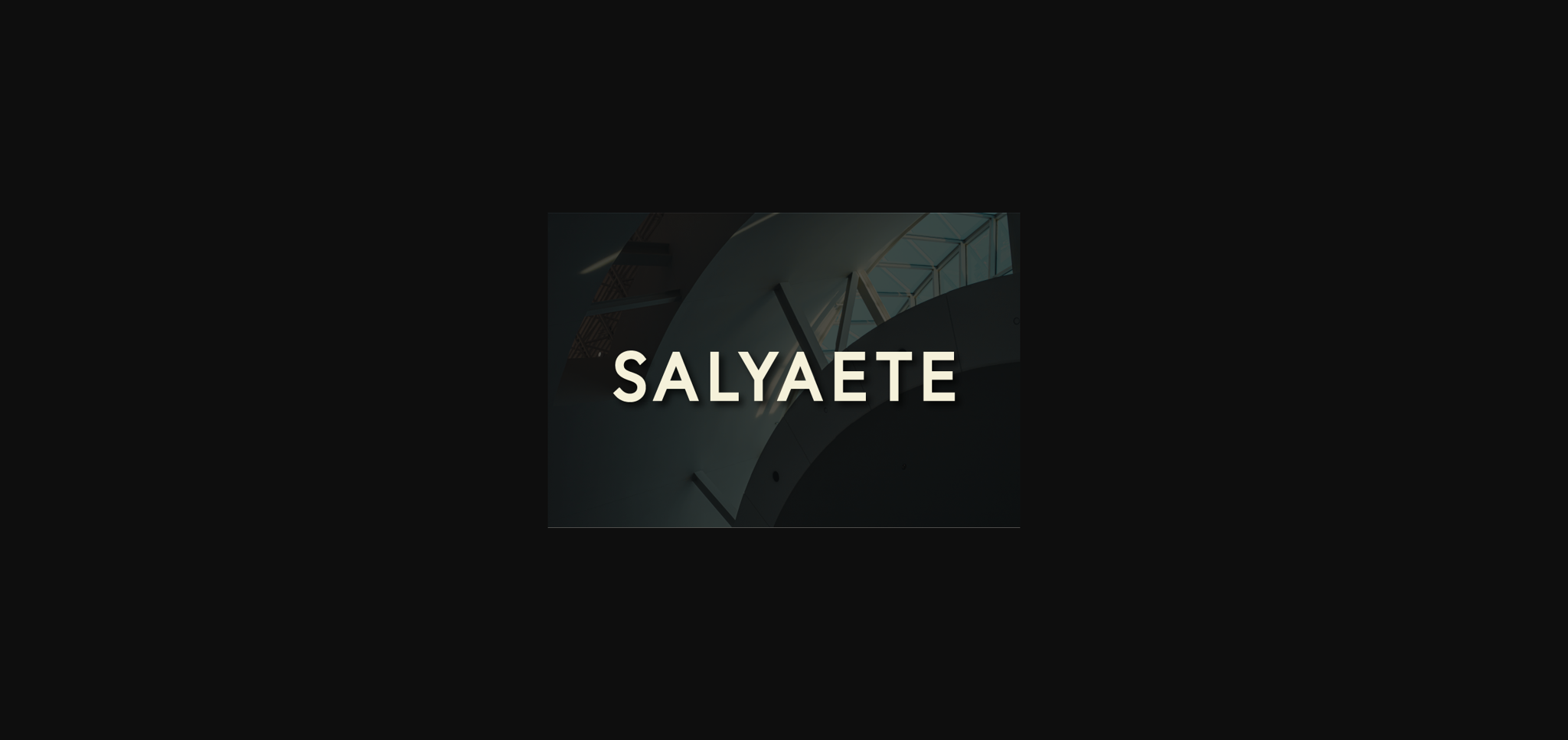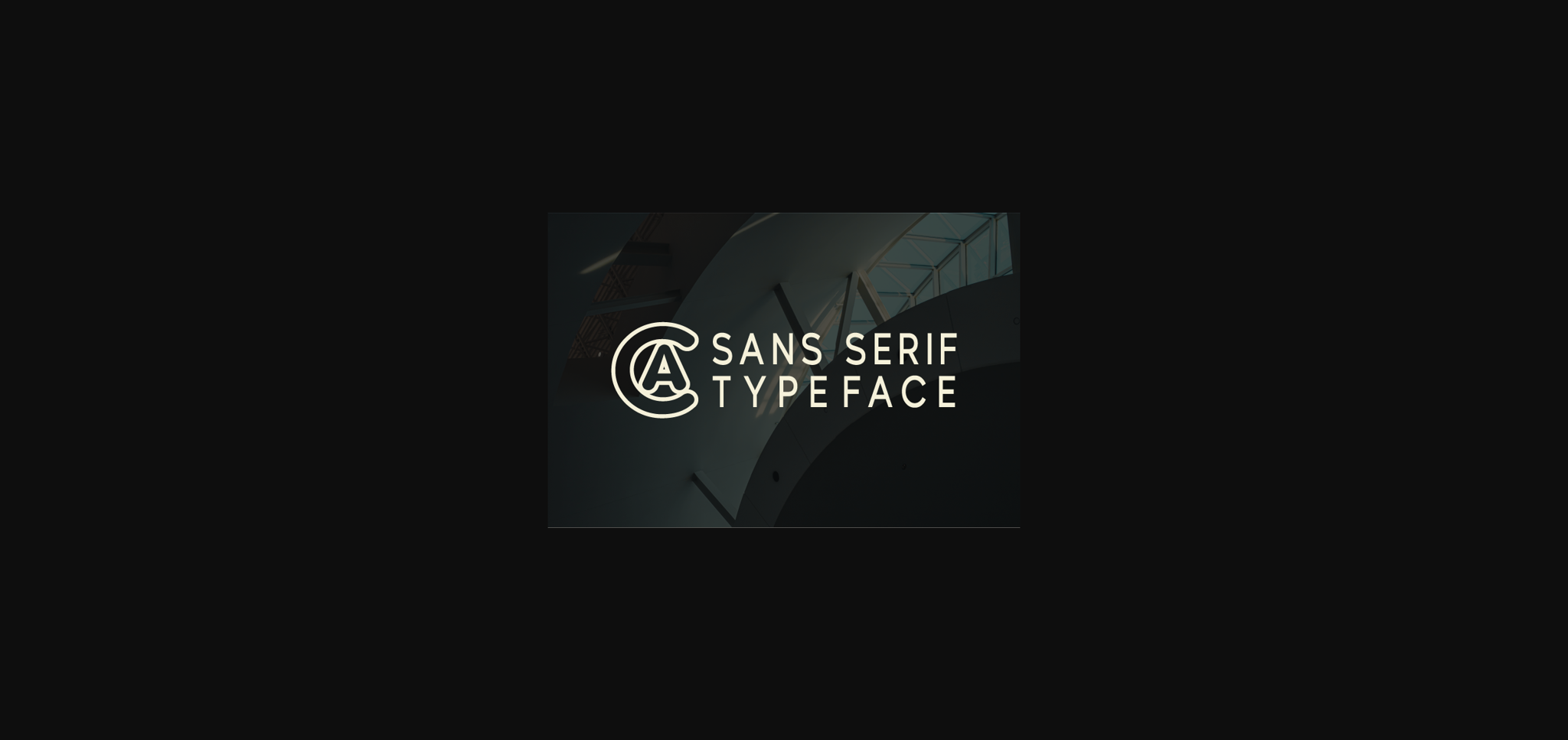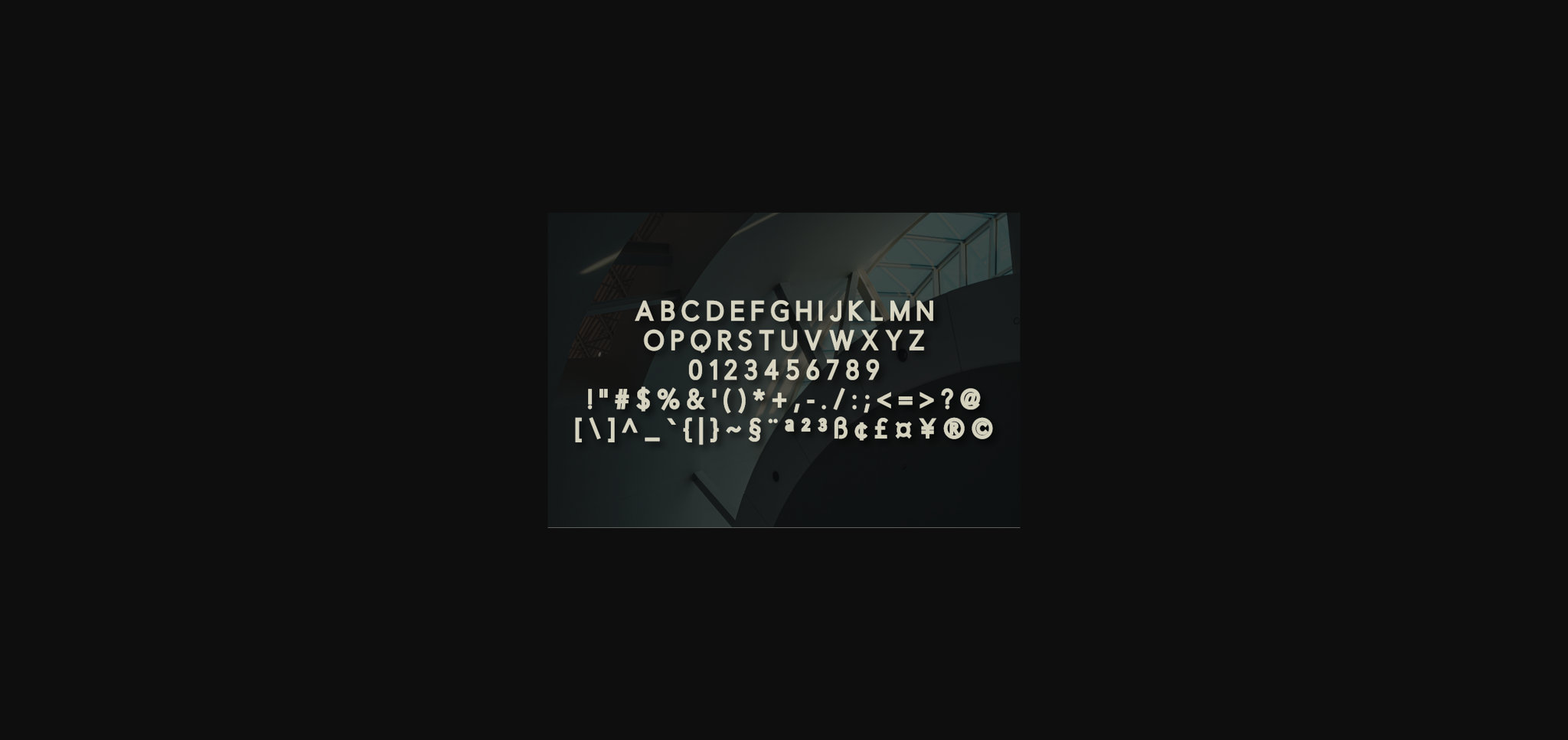
About Salyaete Font
Salyaete is a simple and friendly handwritten font. Its natural and unique style makes it incredibly fitting to a large pool of designs.